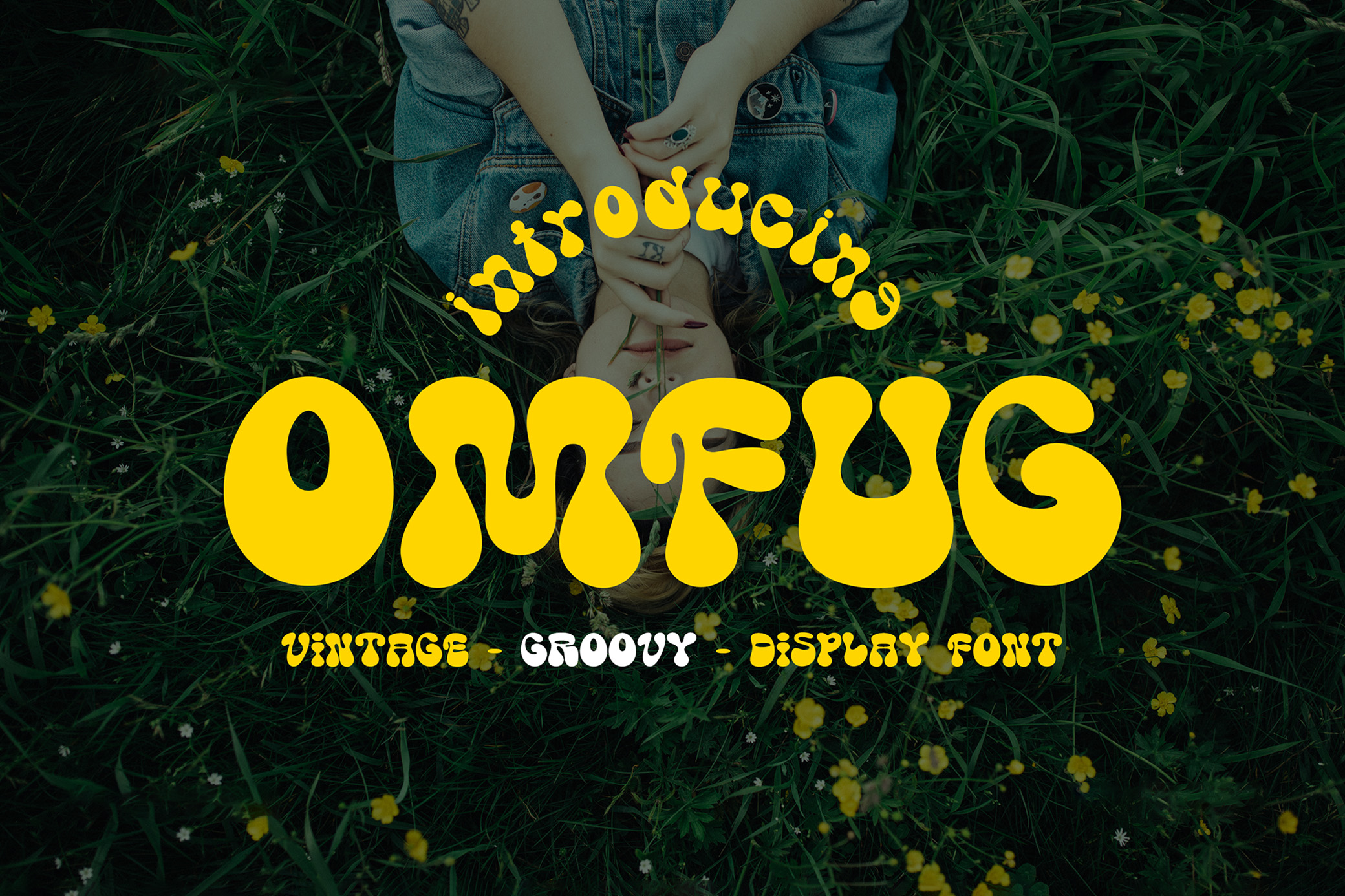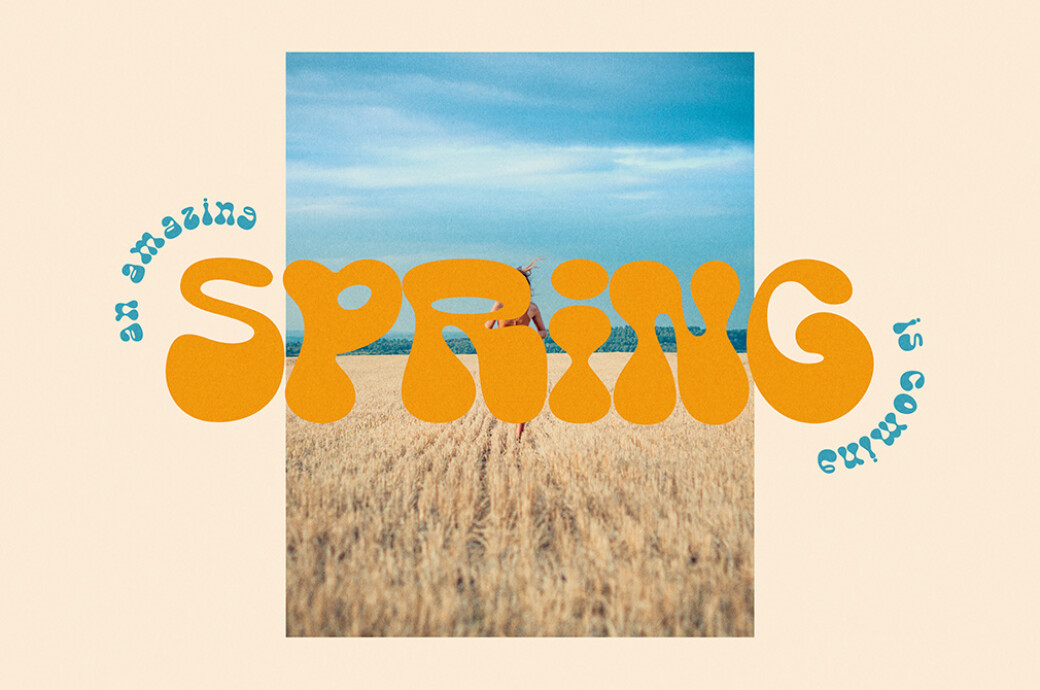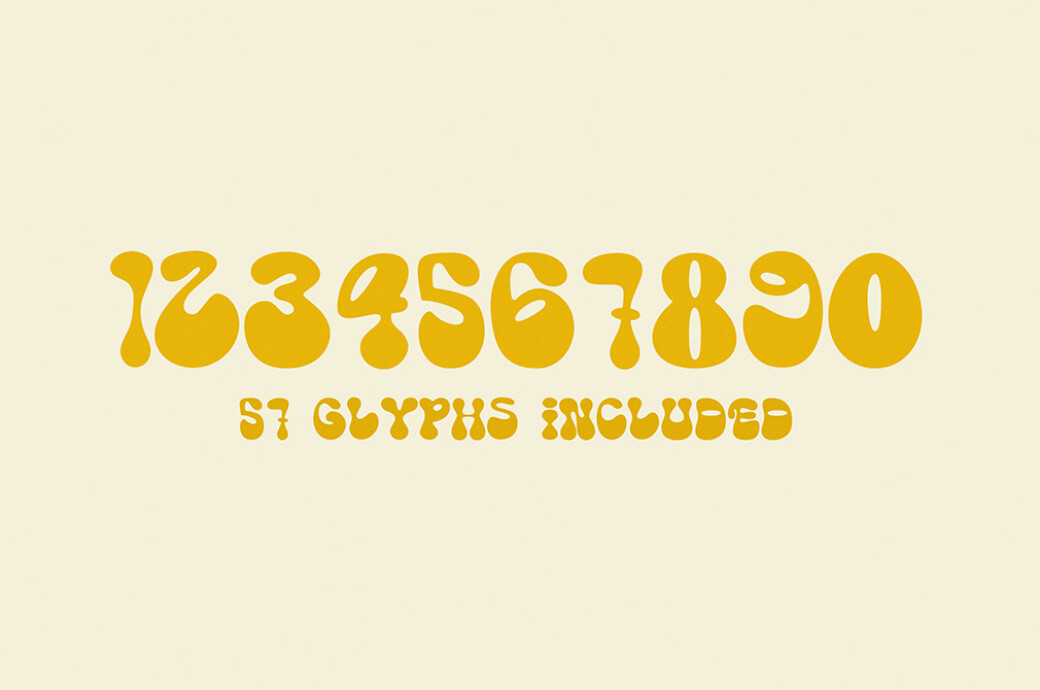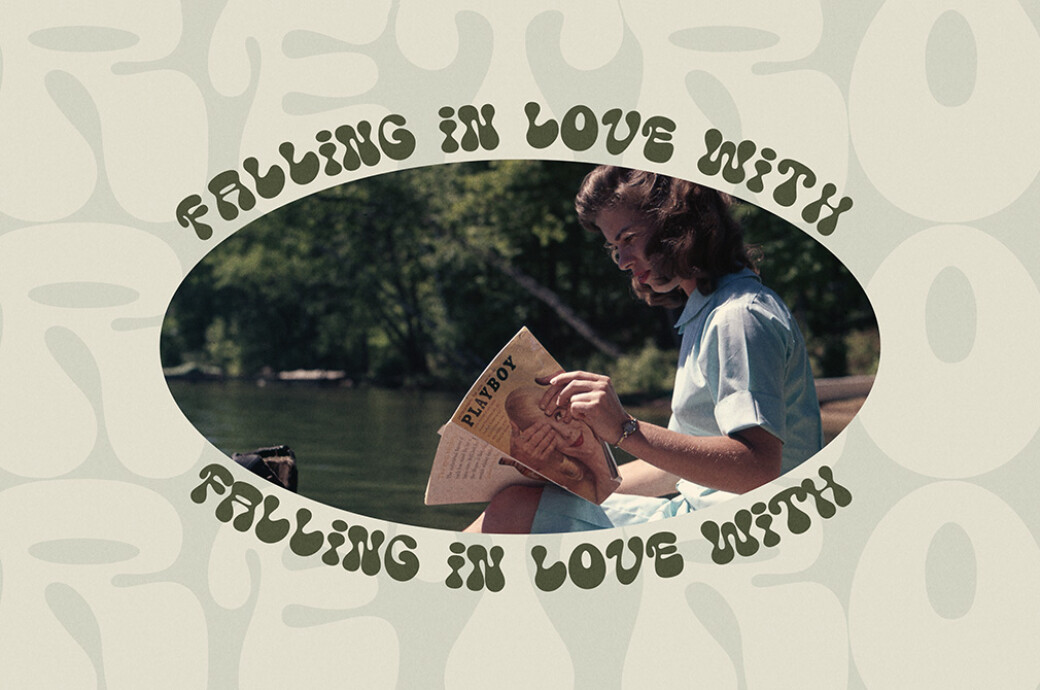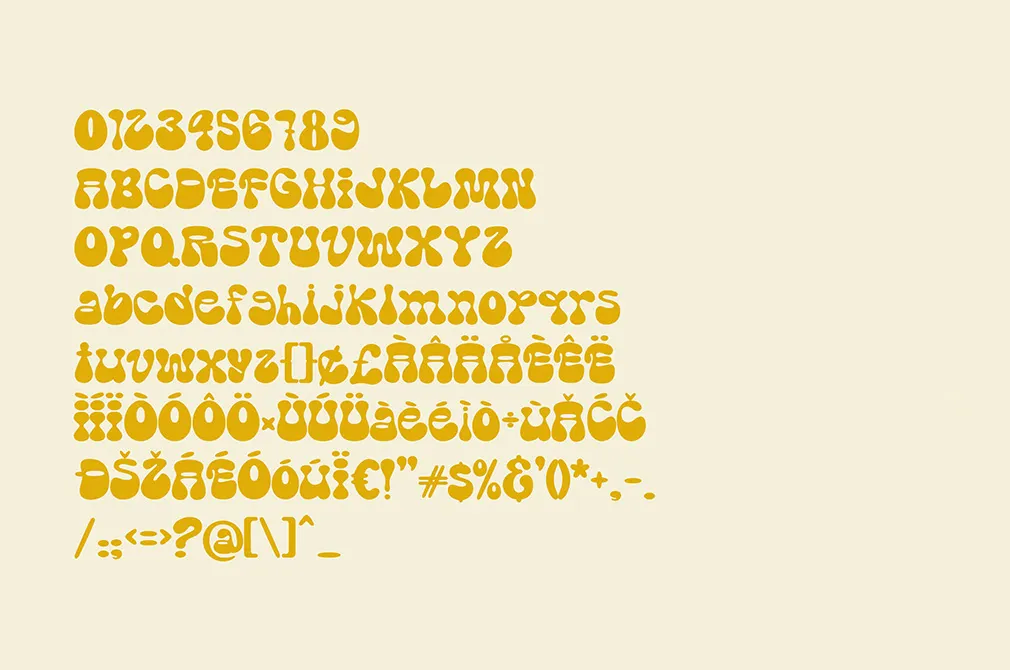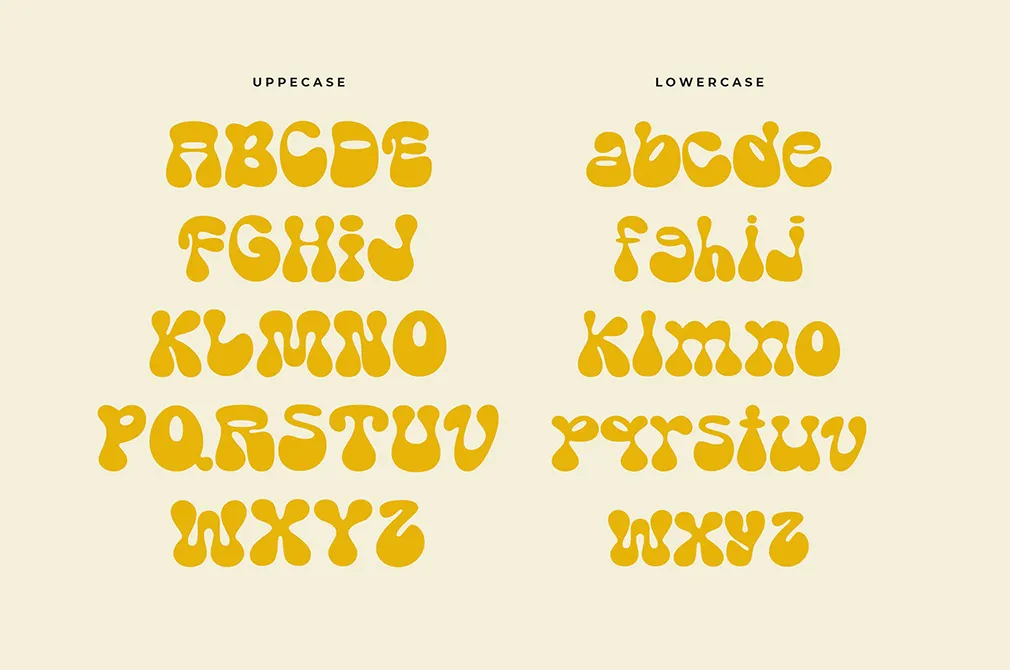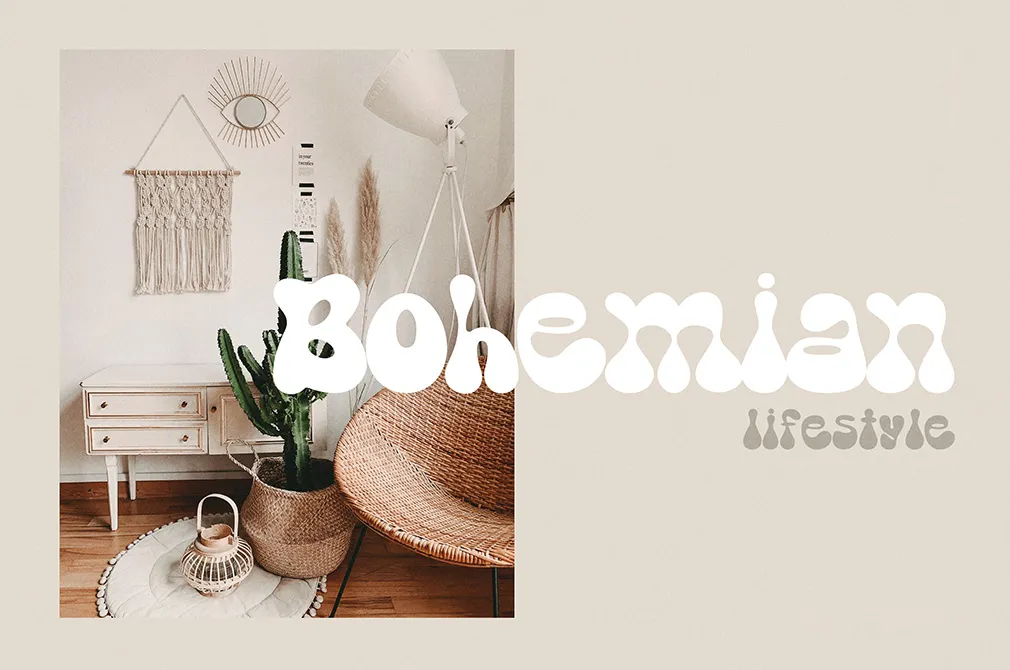
Omfug Retro Display Font
It's never too late to become a hippie. You can start by rediscovering some basic fashion attributes, going eco, or downloading Omfug, a type right from the 70s.The 70s typography is one of the major trends of the year. And yet retromania has become quite a conventional thing in the industry, the revival of the groovy fonts can't help making our hearts beat faster. And that's why Omfug's here. It is a perfect example of the genre, accordingly jam-packed with the necessary features. It includes upper and lowercase characters, plus 57 glyphs. The font is available in OTF, SVG, and WOFF formats, so you can use it in Web and Canva projects.